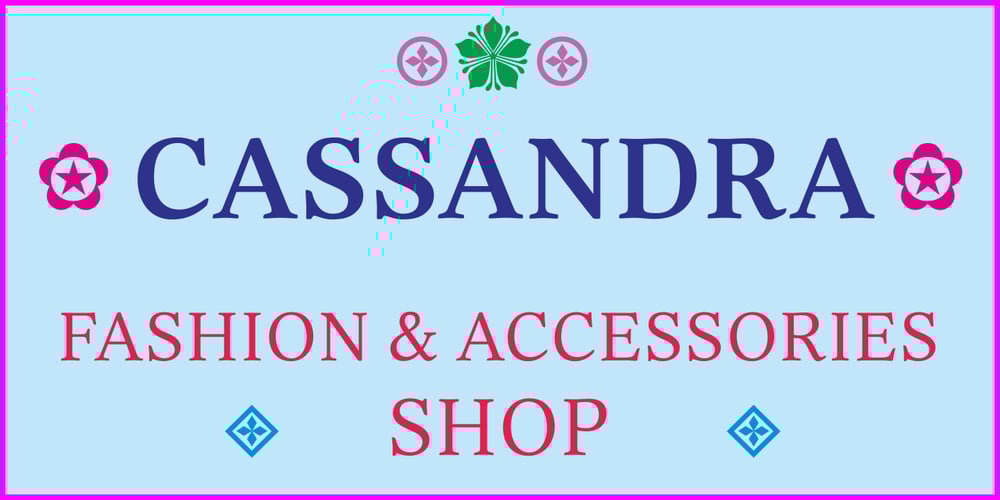
Alphabet Asri
Alphabet Asri font
Alphabet Asri Font Family was designed by Sudarmaji and published by Asritype. Alphabet Asri contains 4 styles and family package options. A beautiful serif font with calligraphic touch. Great for your documents, book printing, and other designs.